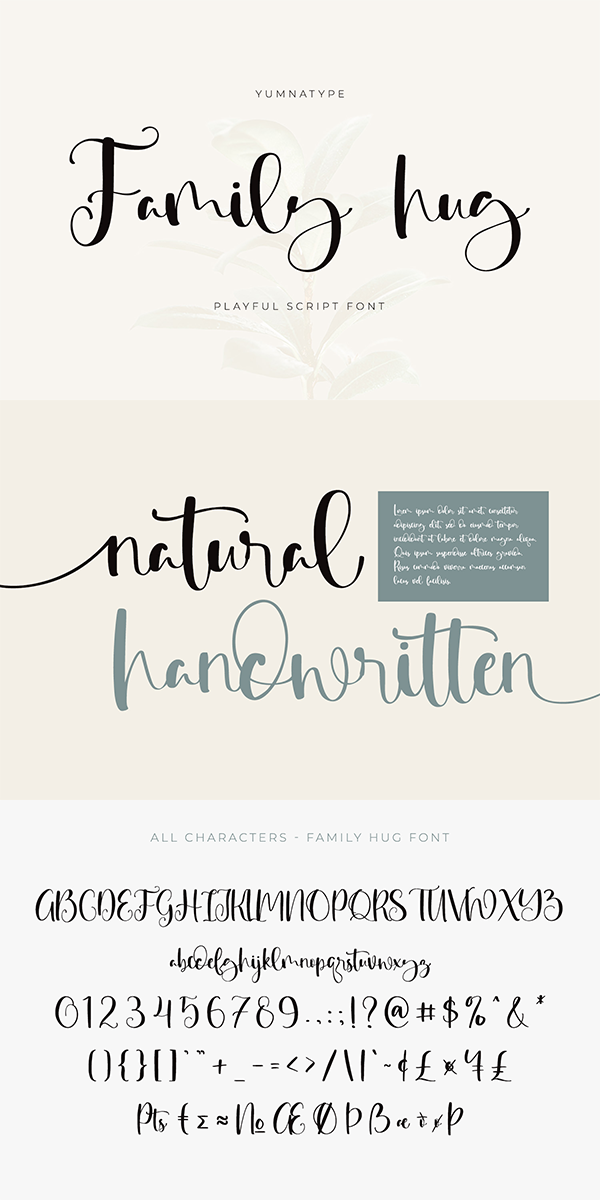
Family Hug Font
About Family Hug
Family Hug is a high level script font made from handwriting to express prettiness and fun nuances. Displaying the dancing basic lines and the calligraphy styles in the decorative nuances are the font’s characteristics. Its complex forms are suitable to apply for big, short text sizes along with the available features to maximize your designs.
Family Hug fits for various design projects, such as posters, banners, logos, magazine covers, quotes, headings, printed products, invitations, name cards, merchandise, social media, etc. Find out more ways to use this font by taking a look at the font preview.